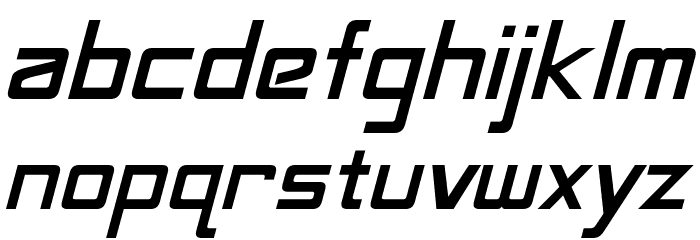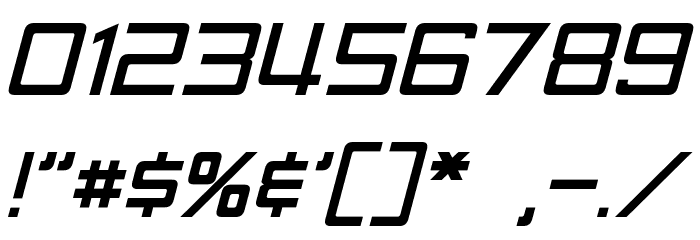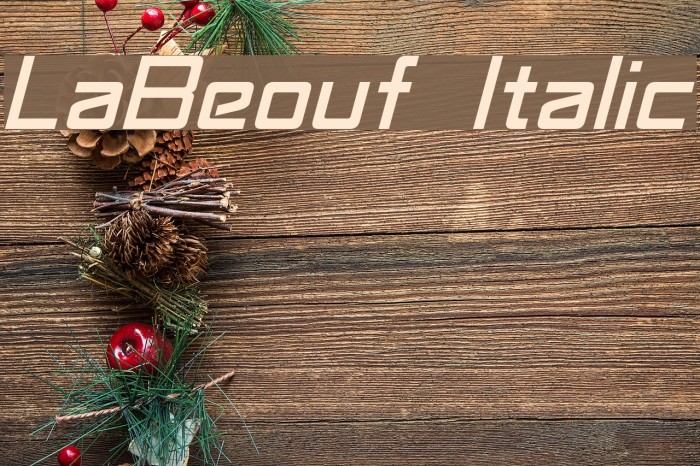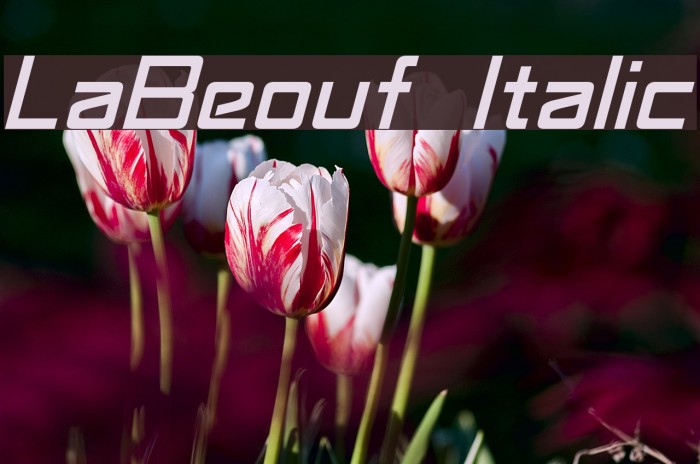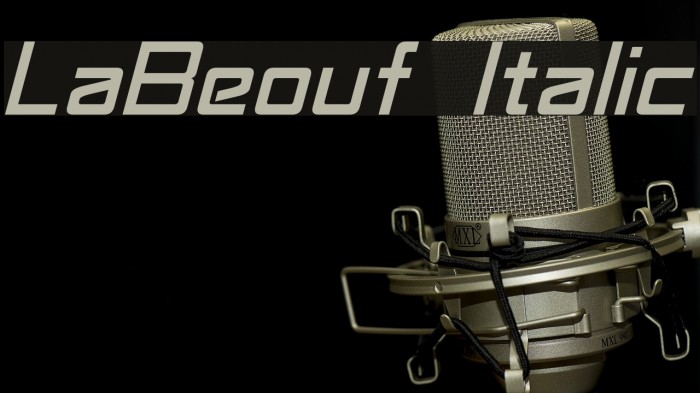
LaBeouf Italic Font
This font features a sleek, modern design with a distinct italic slant, giving it a dynamic and forward-moving appearance. The characters are crafted with precision, showcasing a geometric structure that is both clean and sophisticated. The uppercase letters are bold and assertive, while the lowercase letters maintain a consistent style, ensuring readability and elegance. The numerals are well-proportioned, complementing the overall aesthetic. Special characters are thoughtfully designed, adding versatility to the font's use. This typeface is ideal for projects that require a contemporary and stylish look.
A sleek, modern italic font with a geometric structure and dynamic style.
- Font: LaBeouf Italic
- Proposed Projects: Ideal for branding, advertising, digital media, and editorial design projects.
- Use Case: Headlines, Logos, Branding